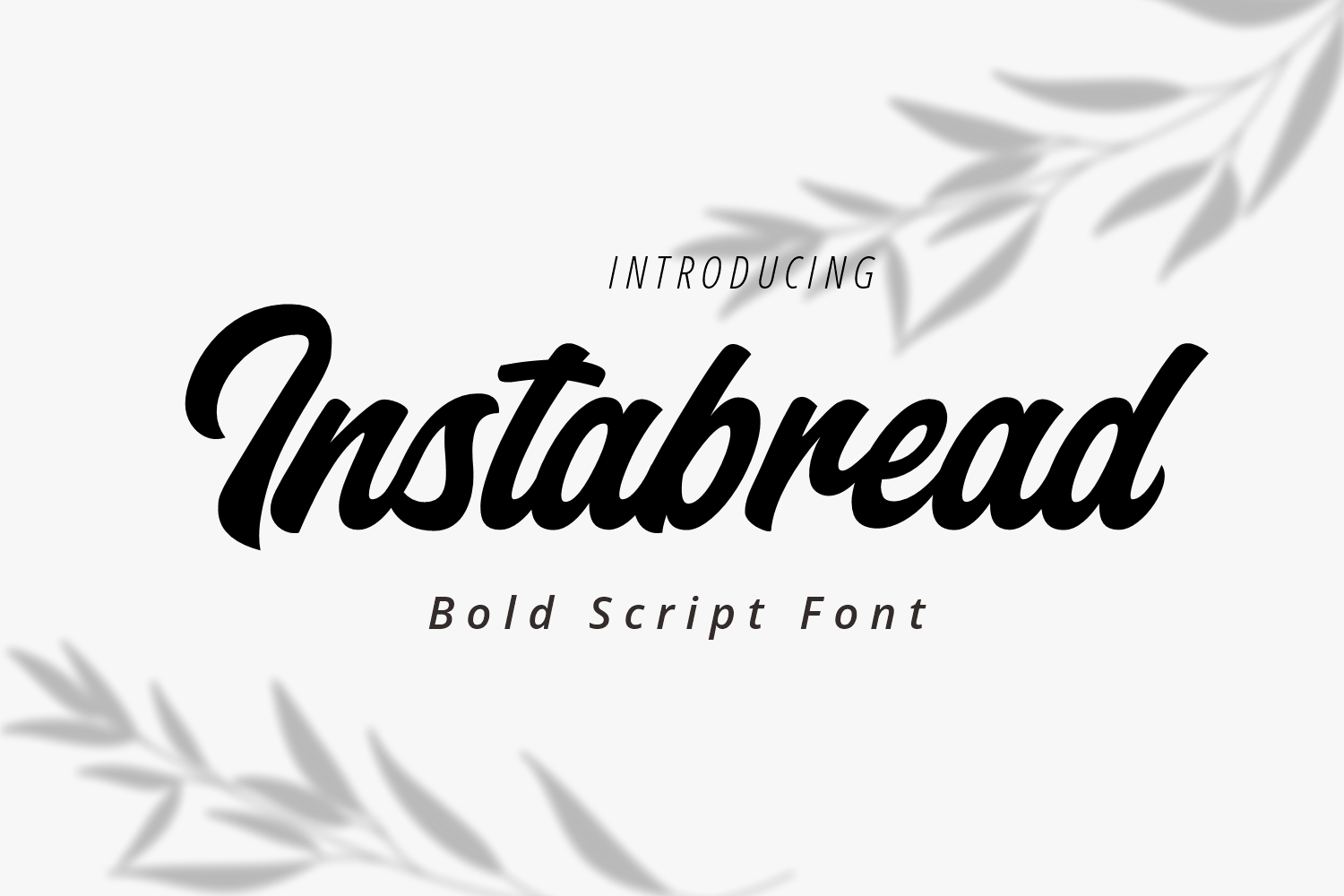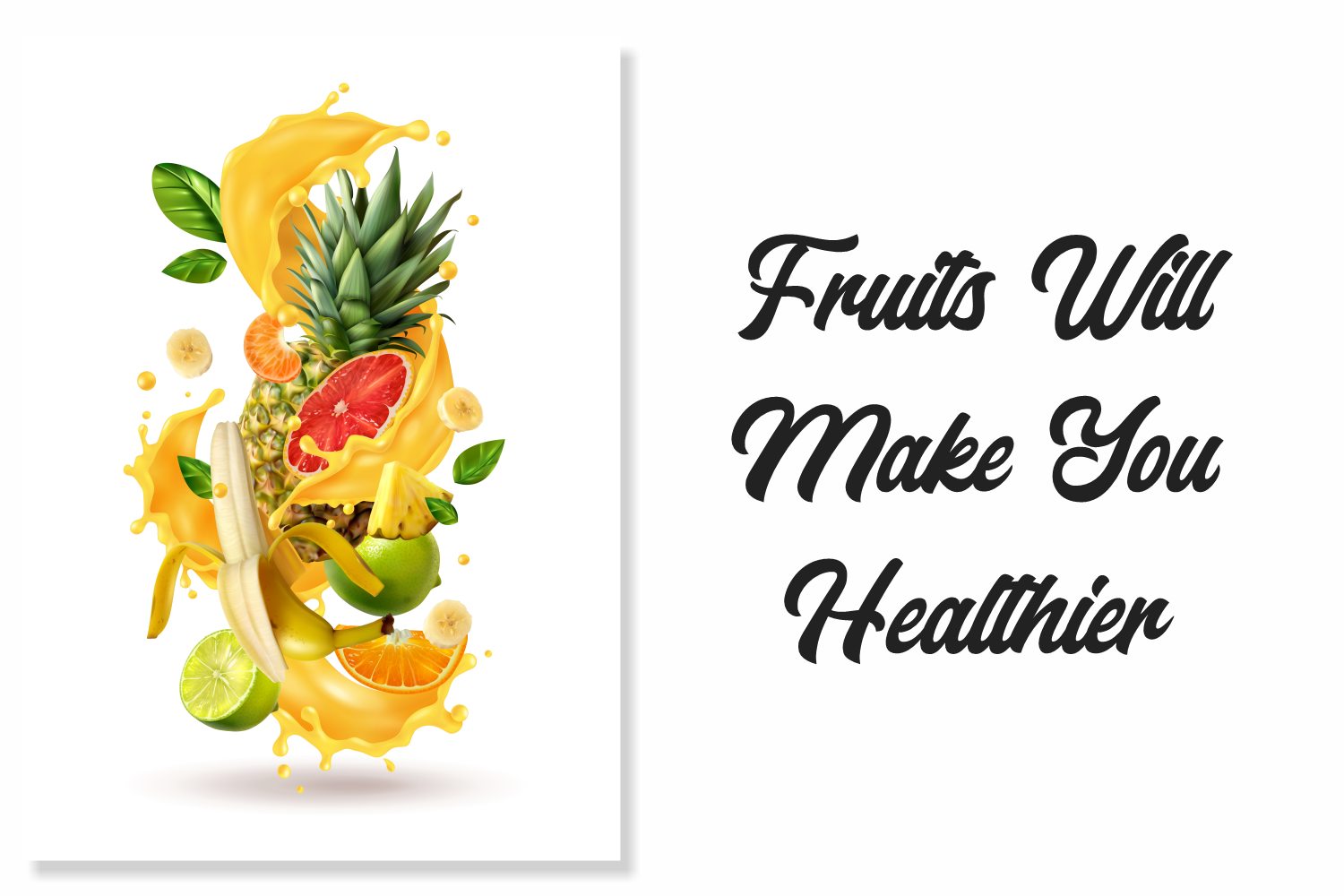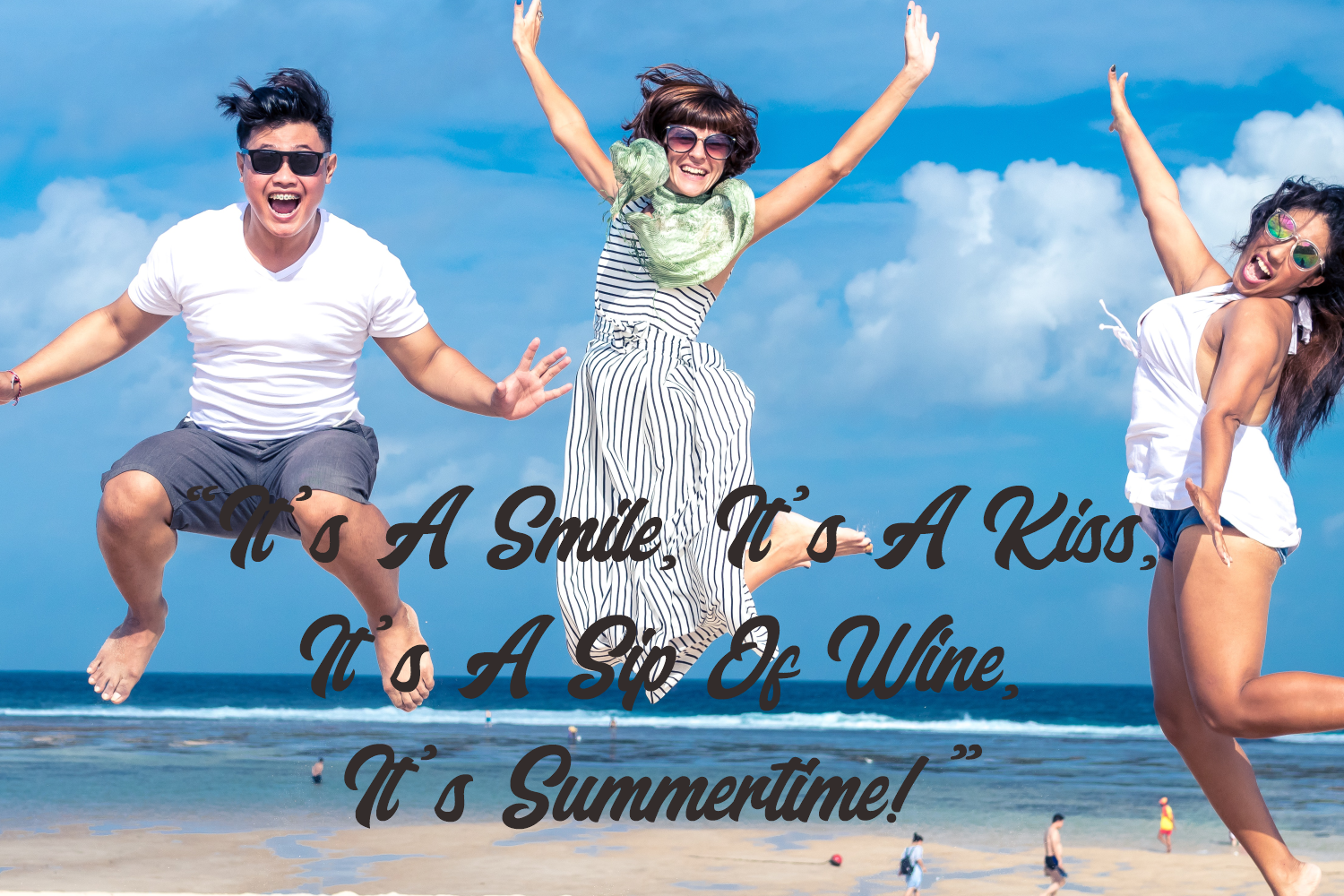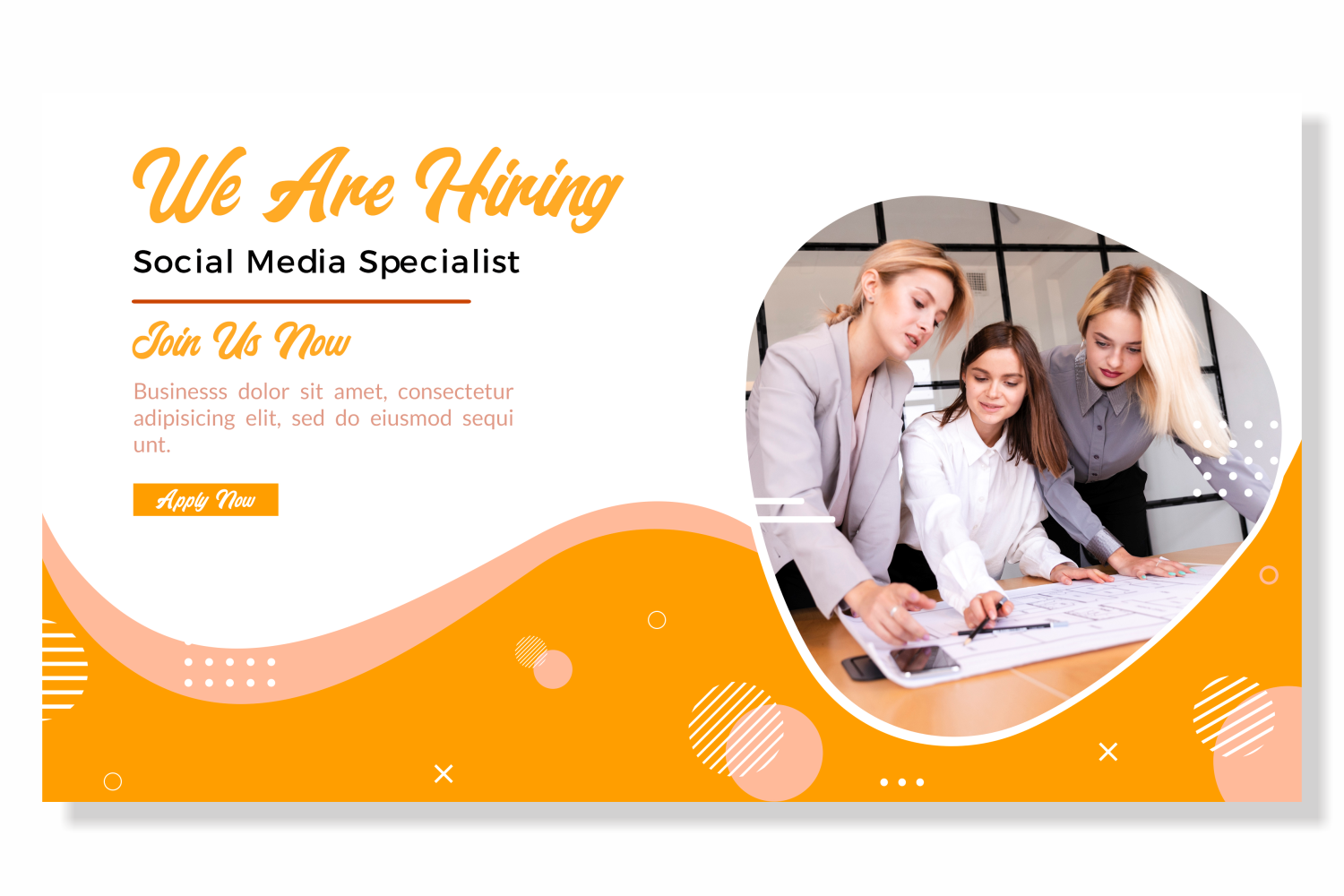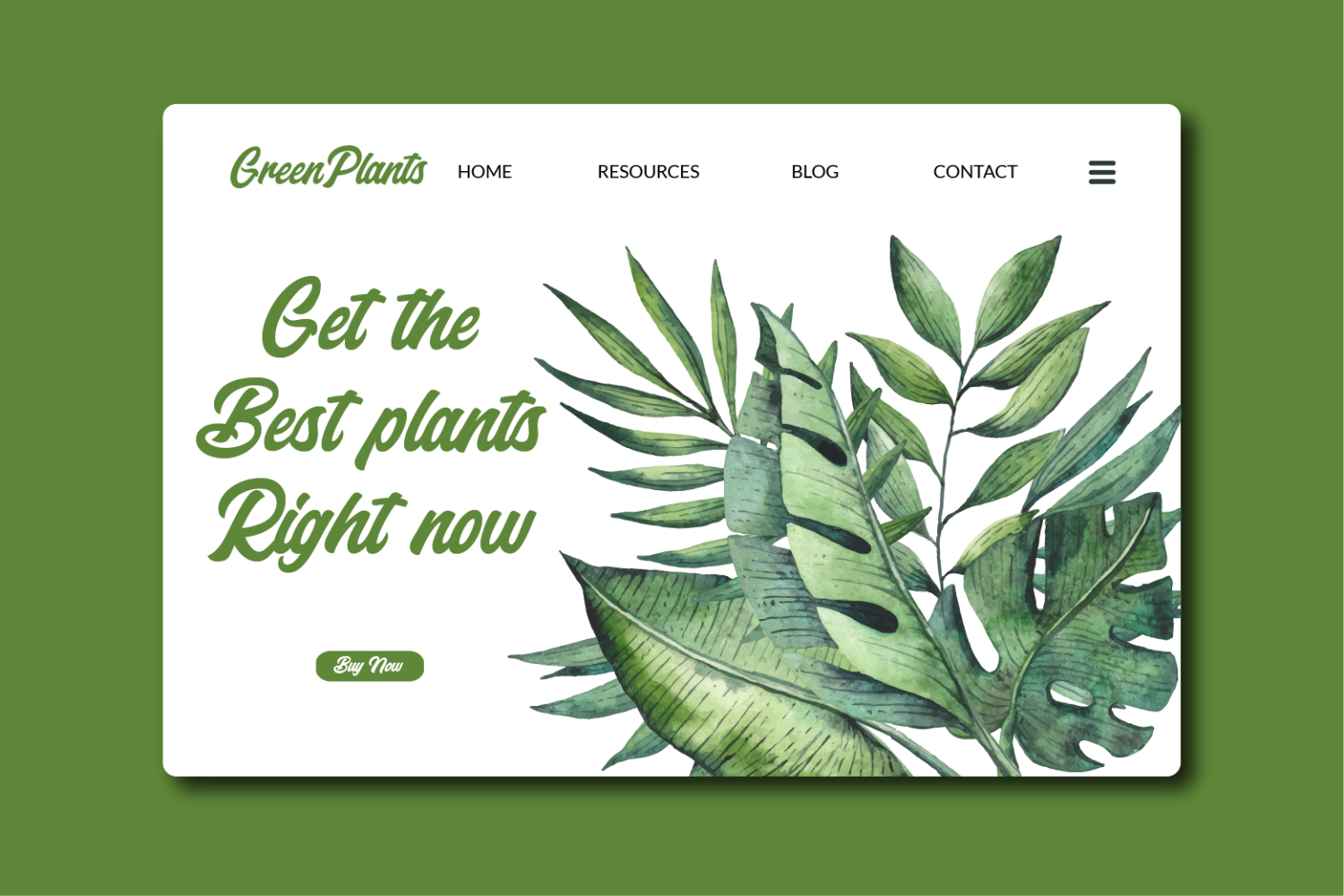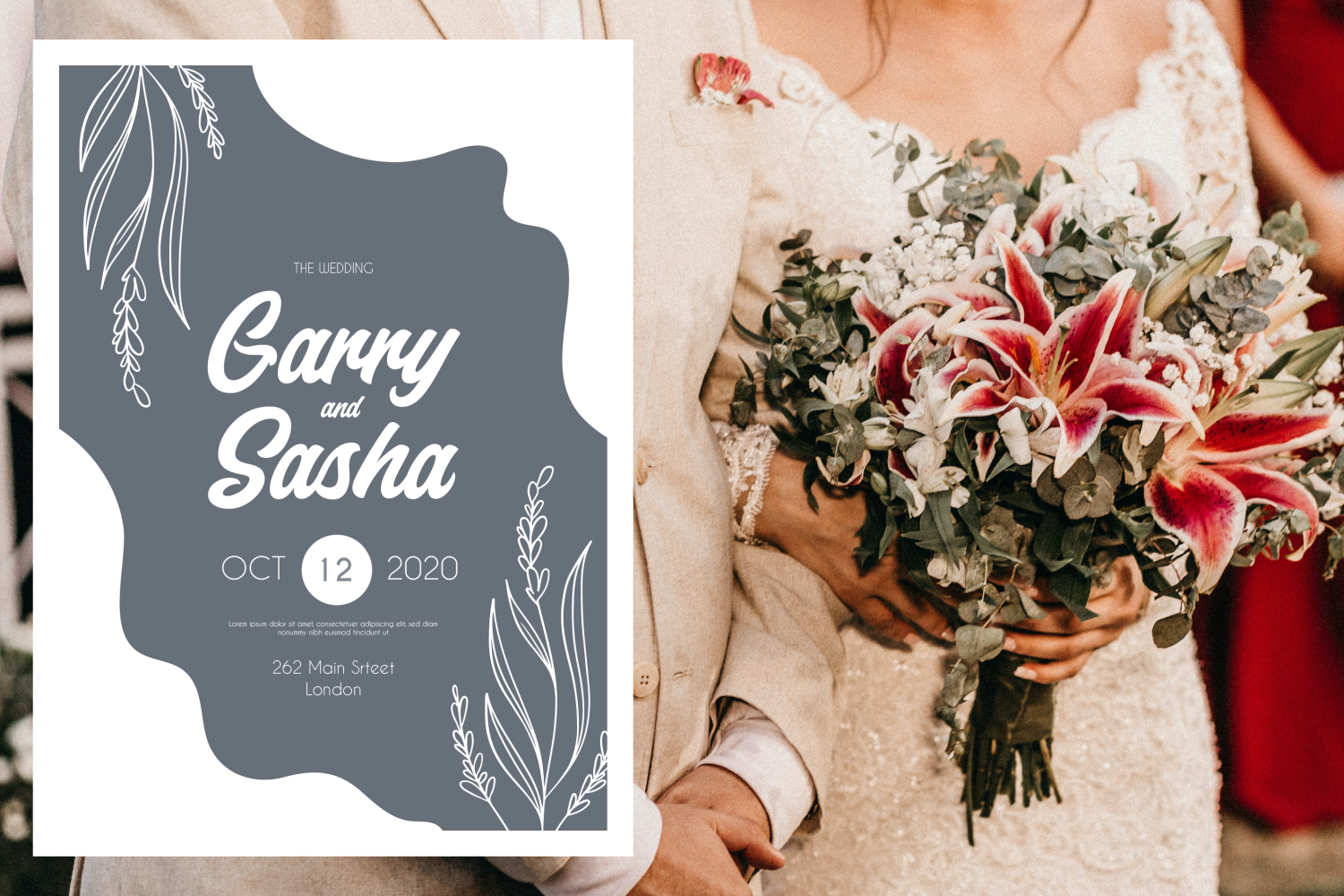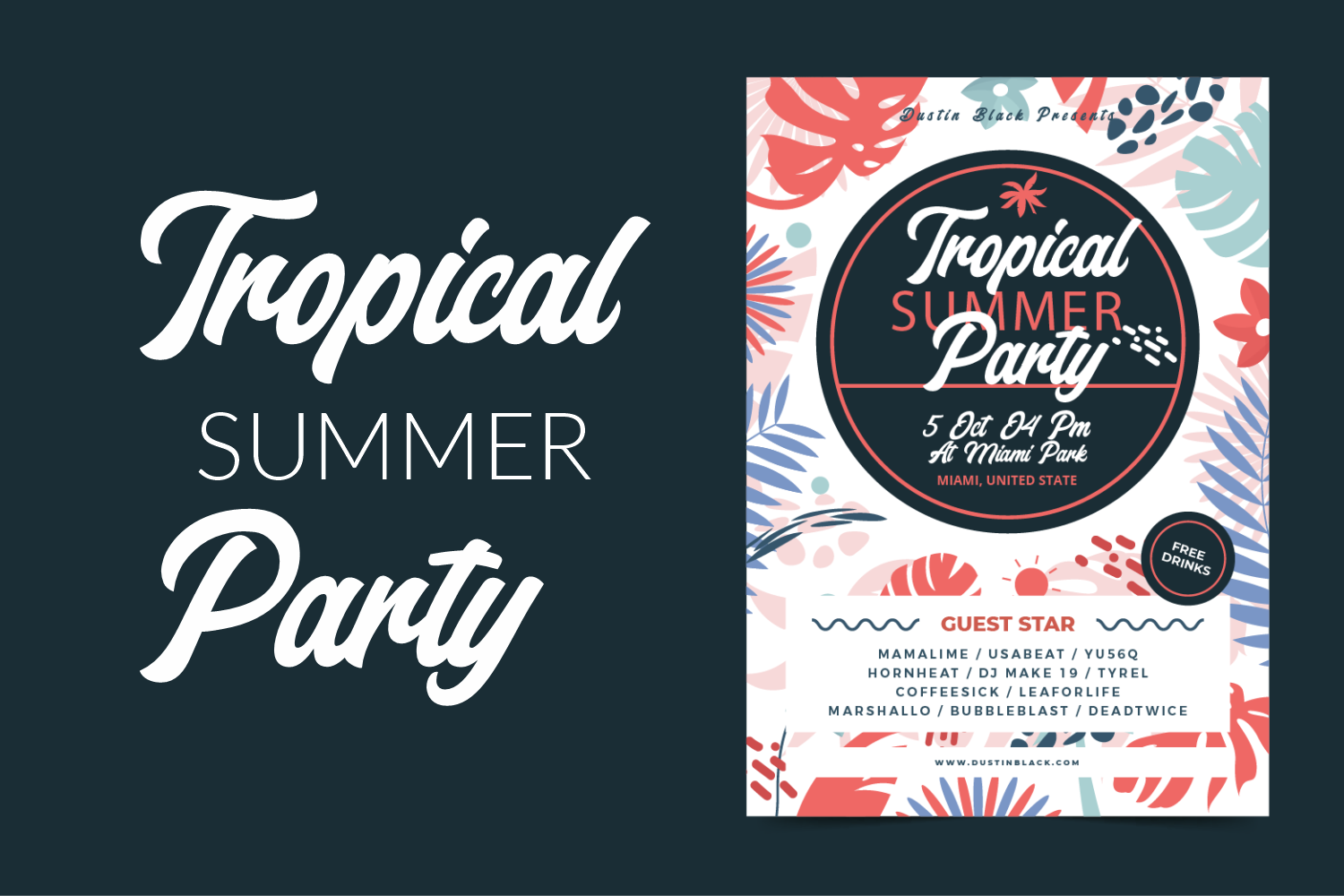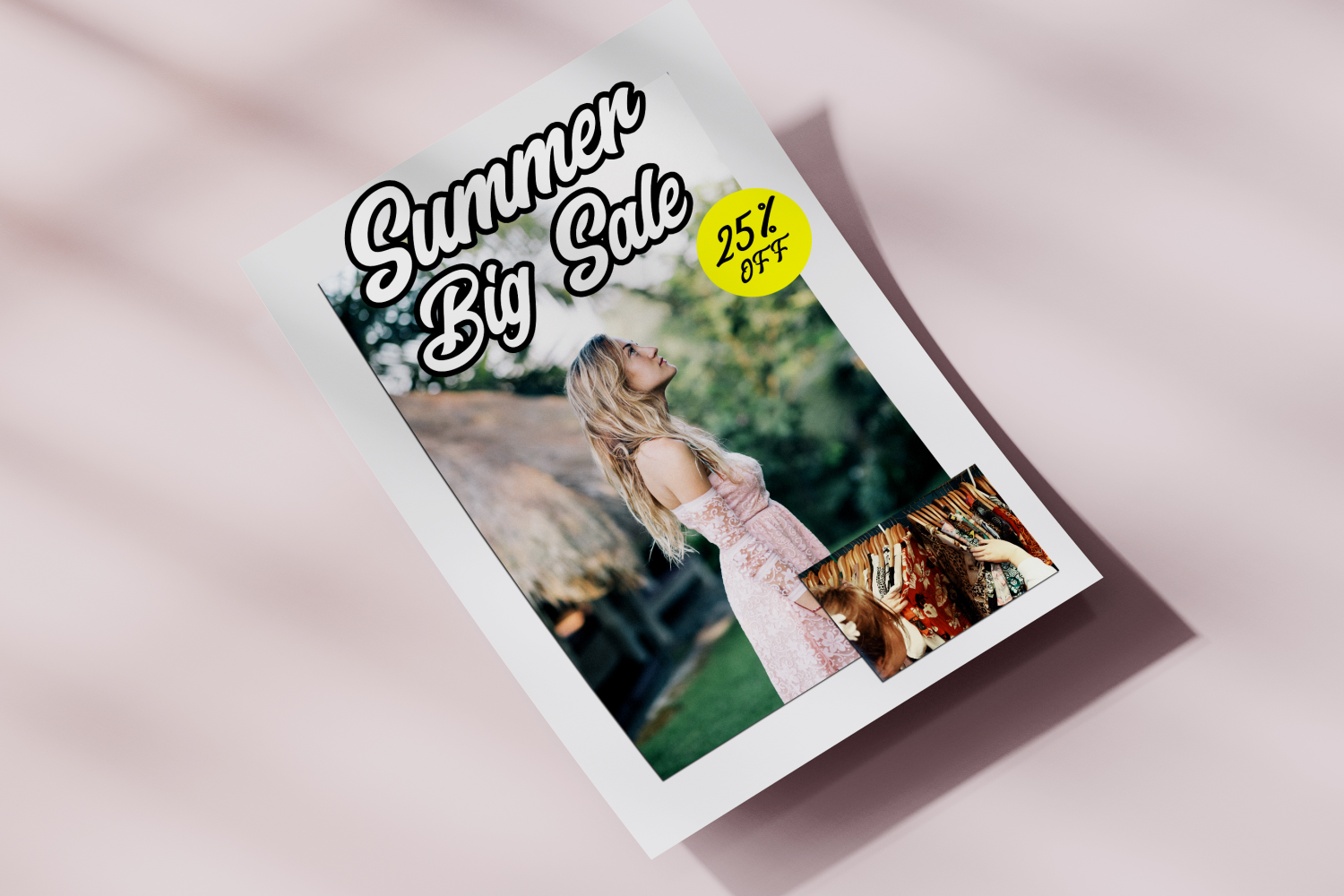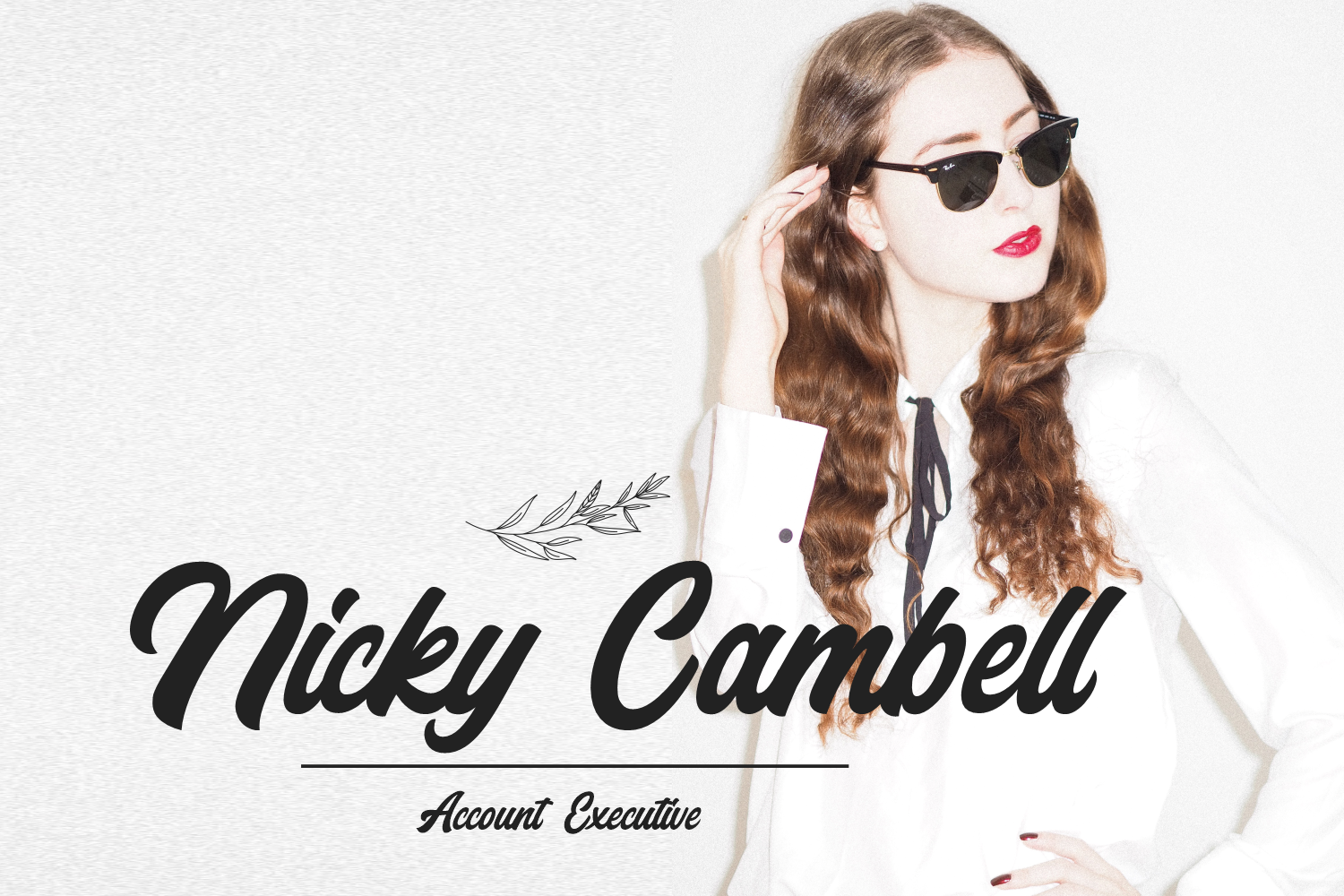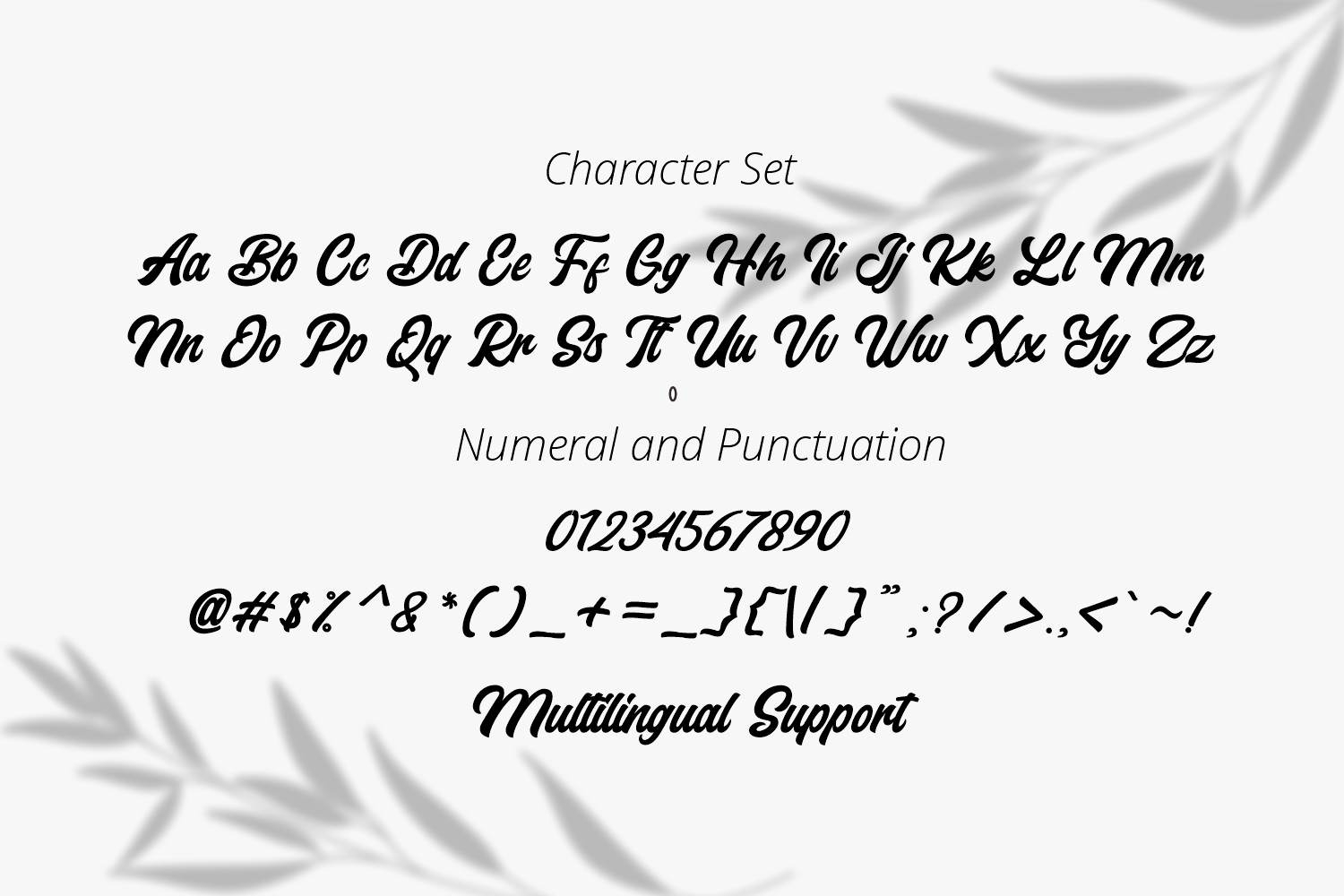
Instabread, Bold Script font
Instabread is a bold, expressive script font that captures the fluid energy of brush lettering. Its letterforms feature high-contrast strokes with a confident, rhythmic flow, balancing thick, weighted curves with tapered, graceful terminals. The characters possess a consistent slant and a friendly, informal personality that feels both approachable and authoritative. The design maintains legibility through its deliberate spacing and clean, connected structure, making it a reliable choice for headlines that require a personal, artisanal touch.
This typeface is well-suited for lifestyle branding, food-focused marketing, and creative social media content. Its bold presence ensures it stands out against imagery, while its calligraphic charm adds a human element to digital designs. Whether used for a health-conscious advertisement or a boutique brand identity, Instabread brings a cohesive, hand-crafted aesthetic to layouts that need to feel vibrant and engaging.